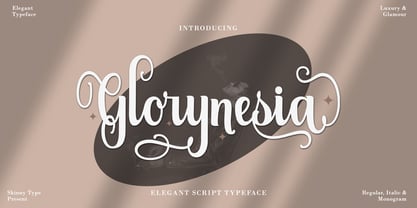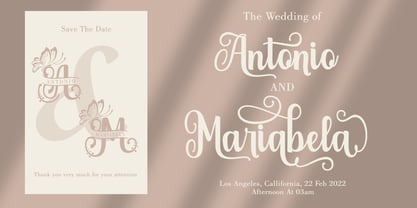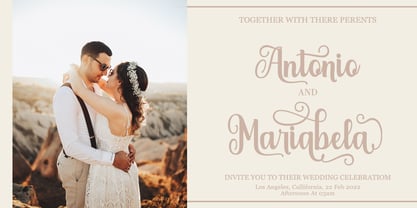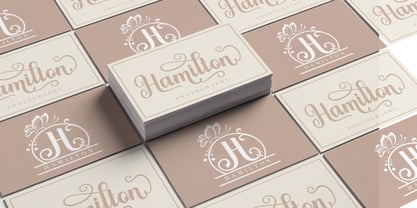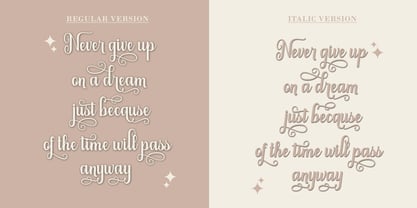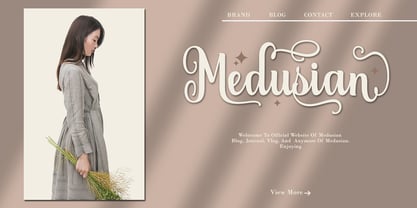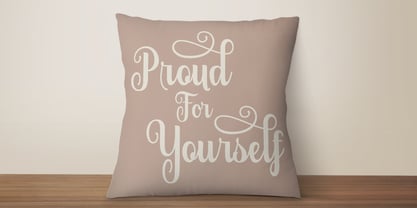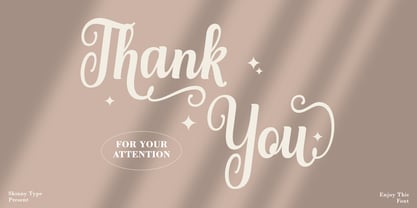
Glorynesia
The Glorynesia Font Family was designed by Muhajir and published by Skinny Type. Glorynesia contains 2 styles and family package options. More about this family
Glorynesia is a font family that combines two neat script fonts and an italic font. Glorynesia features numerous alternate characters for each letter. This font includes over 500 alternate glyphs that you can use. You can use all lowercase letters, uppercase letters, and numbers, as well as access stunning ligatures and alternate styles. This font is perfect for creating t-shirt designs, invitation card designs, logos, and more.